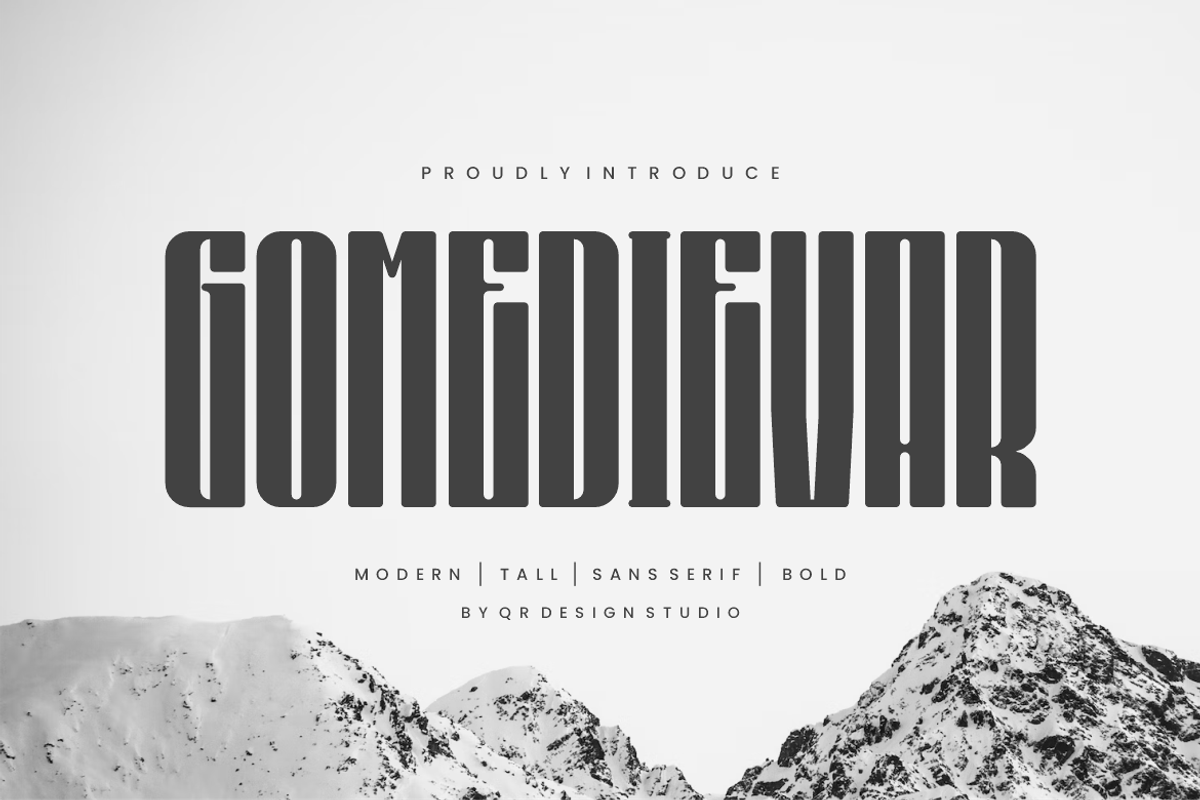
Gomedievar - Tall Font Free Download
Gomedievar - Tall Font Free Download is a sleek and modern tall typeface designed to make a bold impact. Featuring elongated letterforms and clean lines, this font is perfect for projects that require a strong and stylish aesthetic, such as headlines, posters, logos, branding, and digital design.
Gomedievar - Tall Font Free Download adds a contemporary, elegant feel to your typography while maintaining excellent legibility, making it ideal for high-visibility designs. Whether you're designing for fashion, tech, or creative projects, this font gives your work a modern, powerful presence.